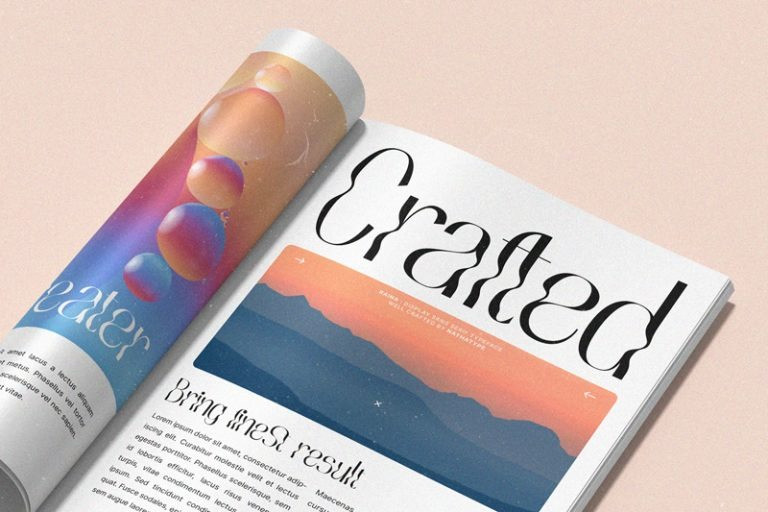
Raina Font
Raina Display Font is one of the sans serif font combinations with the display font. Unlike the other solid, firm displays of sans serif font, Raina expresses more artistic, unique displays as a result of the display font’s character combinations. Its differing letter shapes from ordinary alphabets create uniqueness for this font because each letter has no straight lines, but indentations or cavities instead, and no tiny lines or hooks as a sans serif font character. With the unique shape of this font, use this font on bigger screens for a legibility reason.